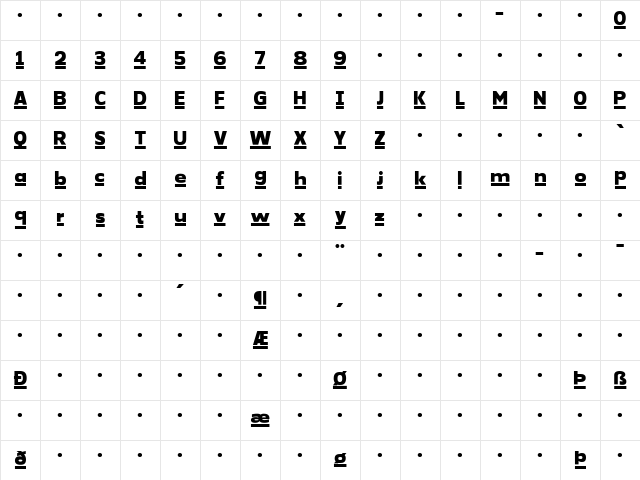
GovanThree-AlternateLined Regular
| Foundry | FSI |
| Designer | Ole Schaefer, Erik Spiekermann |
Design Context for GovanThree-AlternateLined Typeface
GovanThree-AlternateLined takes a measured approach to typography — its balanced proportions and neutral character make it a reliable workhorse for both digital and print work.